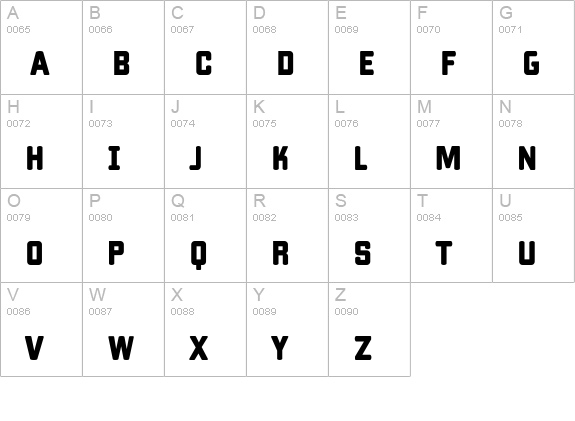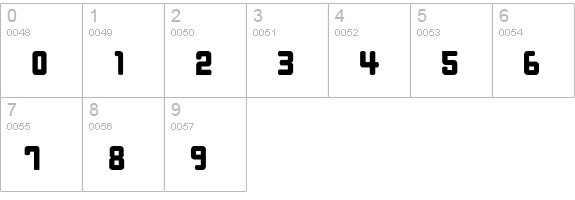
PFHipster Bold Font Details
PFHipster Bold is a strong, high-contrast variant in the PFHipster typeface family \xE2\x80\x94 well suited to headlines, attention-grabbing titles, and strong calls-to-action.
Introducing PFHipster Bold font, a versatile and modern typeface that exudes both sophistication and edginess. With its bold and eye-catching design, PFHipster Bold is perfect for making a statement in your designs. This font is ideal for branding, headlines, posters, and more. What's even better is that PFHipster Bold font is available for free download at FontsMarket.com. You can easily access this stylish typeface to elevate your projects and make them stand out. Don't miss out on the opportunity to add PFHipster Bold to your font collection today!